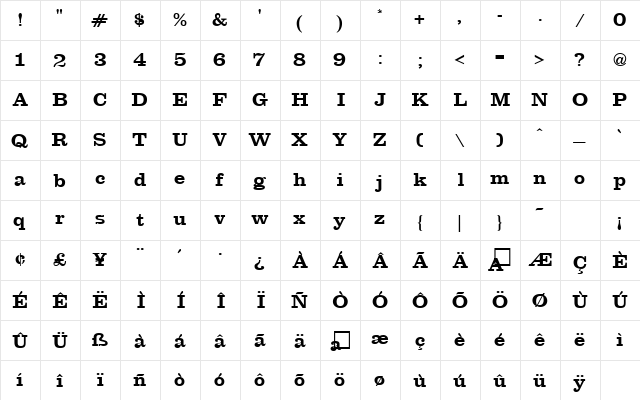
Clearbell Bold
Design Context for Clearbell Typeface
Clearbell is a composed and adaptable typeface that performs quietly and consistently across a wide range of design contexts. Its bold stroke weight gives it real presence on the page.